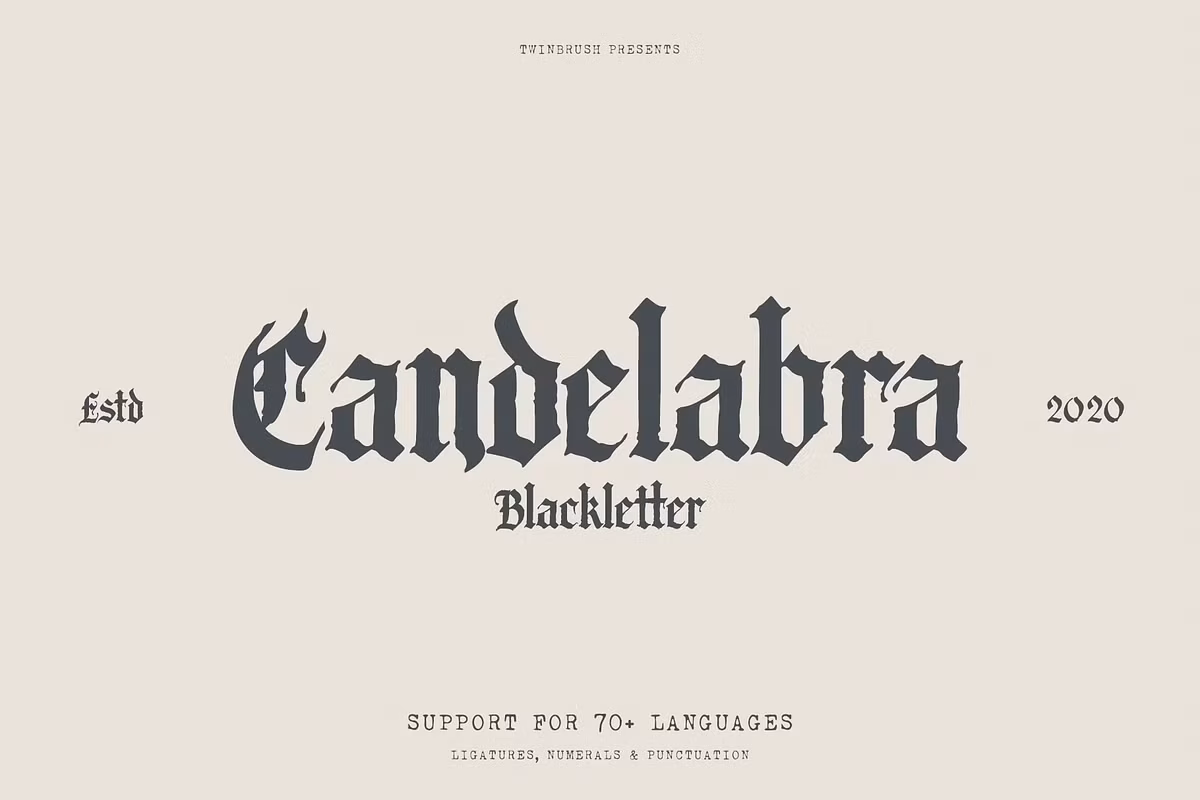
The Candelabra Font + Extras Free Download is a beautiful and elegant typeface designed to add a touch of sophistication and charm to your designs. Featuring a classic serif structure with intricate details, this font is perfect for creating high-end branding, elegant invitations, logos, and promotional materials. The included extras provide additional decorative elements to enhance your designs, giving you even more creative flexibility.
Candelabra Font + Extras Free Download is ideal for designers looking to add a stylish, timeless touch to their typography. Perfect for upscale branding, luxury events, or creative projects that require a sophisticated look, this font will elevate your designs with its unique and elegant flair. Download it today and enrich your work with the beauty of Candelabra!